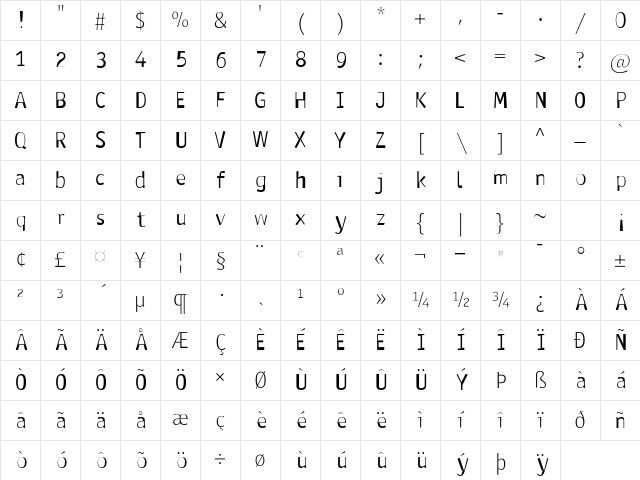
Antaviana Normal
Design Context for Antaviana
Antaviana is a composed and adaptable typeface that performs quietly and consistently across a wide range of design contexts.